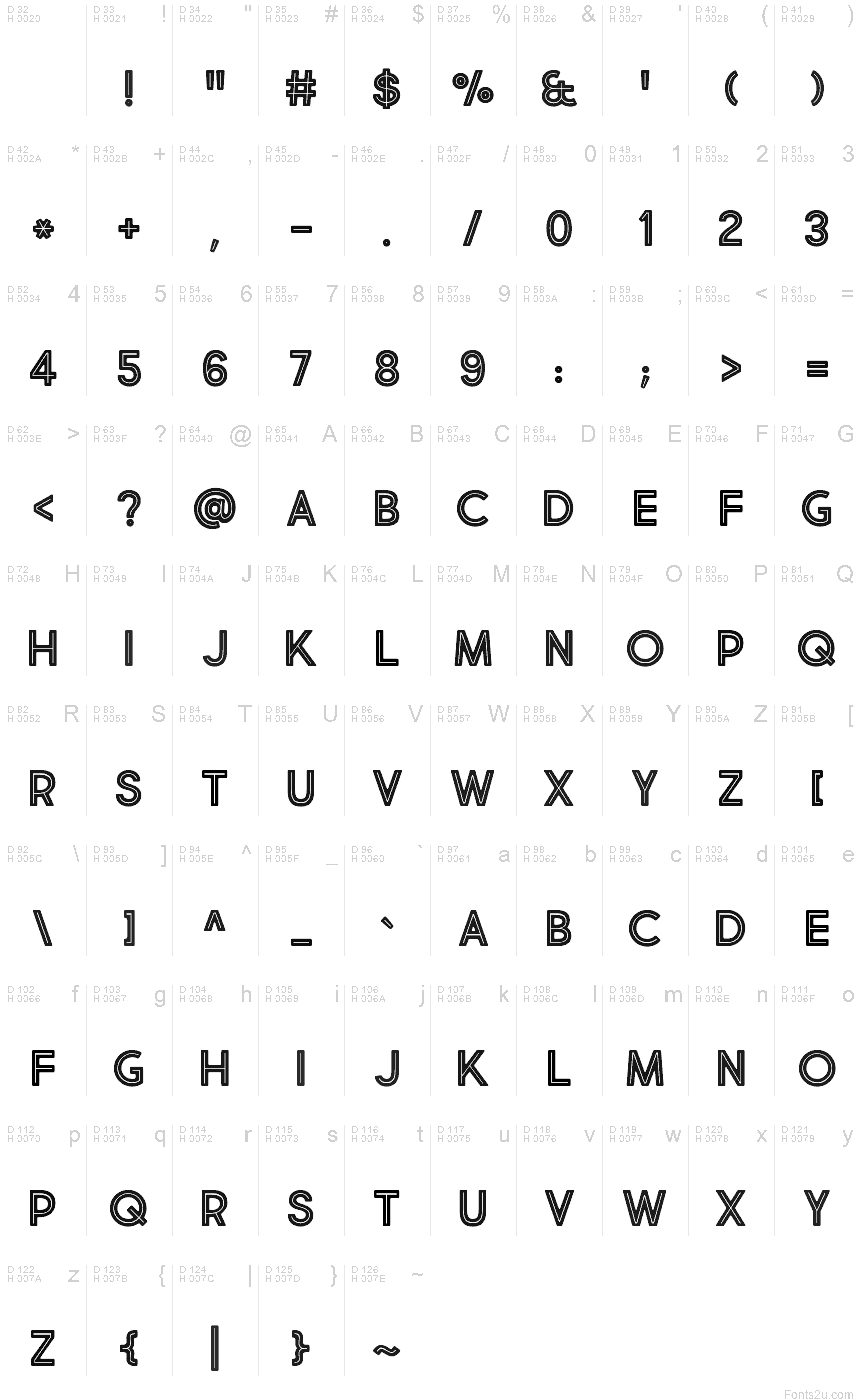
Market Fresh is an open, clean sans inspired by old-style retro headlines.
Includes 500+ characters: Extended Latin, Greek, Cyrillic & more.
Market Fresh Inline Bold All Caps